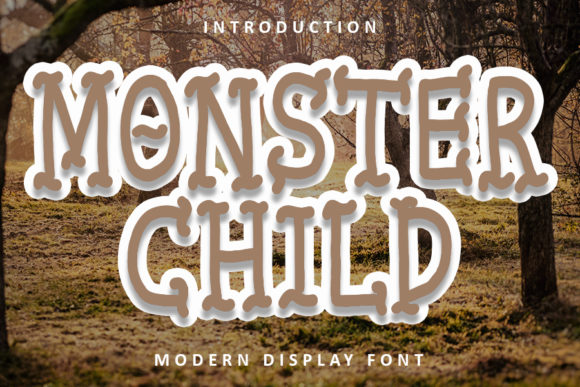
Monster Child Font
Monster Child is a natural and neat display font that brings a unique blend of trendiness and readability. Its design balances modern aesthetics with a clean, approachable look, making it versatile for various creative and professional applications. Whether you're designing digital content, crafting physical projects, or preparing visual presentations, Monster Child offers a fresh and eye-catching alternative to traditional fonts.
Why Monster Child Matters to Different Audiences
Monster Child appeals to a wide range of users, each with distinct needs and goals. For some, the font's visual appeal is the main draw, while others may prioritize its usability or adaptability. Understanding how different groups interact with the font helps clarify its value in various contexts.
Beginners and Hobbyists: A Creative Launchpad
For beginners and hobbyists, Monster Child serves as an excellent starting point for exploring typography. Its simplicity and charm make it accessible to those new to design. Whether you're creating greeting cards, social media graphics, or personal projects, Monster Child adds a touch of personality without overwhelming the user.
- Easy to use with minimal technical requirements
- Encourages experimentation and creativity
- Suitable for personal or small-scale projects
Professionals and Designers: A Versatile Tool
Design professionals often seek fonts that are both stylish and functional. Monster Child fits this bill by offering a balance between visual impact and readability. Its structured yet playful design makes it ideal for branding, marketing materials, and digital interfaces where aesthetics meet practicality.
- Adaptable for both print and digital formats
- Supports brand identity and visual storytelling
- Can be paired with other fonts for layered designs
Entrepreneurs and Small Business Owners: Branding Made Simple
For entrepreneurs and small business owners, first impressions matter. Monster Child can help create a memorable brand identity with its distinctive style. It’s particularly useful for logos, website headers, and promotional content where a unique visual voice is essential.
- Helps stand out in competitive markets
- Enhances brand recognition through consistent use
- Cost-effective for small businesses looking to elevate their visuals
Bloggers and Marketers: Engaging Content with Impact
Blogs and marketing campaigns thrive on visual engagement. Monster Child can elevate the tone of your content, making it more engaging and shareable. Its modern flair aligns well with current design trends, helping your message resonate with a broader audience.
- Boosts readability and visual appeal in online content
- Supports a variety of content types from articles to infographics
- Aligns with contemporary design preferences
Educators and Freelancers: Tools for Teaching and Earning
Educators and freelancers often need fonts that are easy to teach and apply across different projects. Monster Child’s clear structure and friendly appearance make it a great choice for teaching typography basics or using in client work. It supports both educational and commercial purposes without sacrificing quality.
- Teaches design principles through hands-on use
- Works well in both instructional and client-facing materials
- Offers flexibility for various project types
Choosing the Right Font for Your Needs
When selecting a font like Monster Child, consider your priorities. Are you looking for something that enhances creativity, improves readability, or supports a specific design style? Each group has its own set of criteria, which can influence whether Monster Child is the right fit.
Key Factors to Consider
- Ease of Use: How simple is it to implement and customize?
- Cost: Is the font free or requires a purchase?
- Quality: Does it maintain clarity at different sizes and resolutions?
- Flexibility: Can it be used across multiple platforms and formats?
- Presentation: Does it enhance the overall visual appeal of your work?
- Learning Value: Does it offer opportunities for growth or experimentation?
- Commercial Value: Is it suitable for business use or public projects?
- Long-Term Usefulness: Will it remain relevant as design trends evolve?
Real-World Applications
Monster Child isn’t just for designers—it’s a tool that can be applied in many ways. Here are a few examples of how different audiences might use it:
Greeting Card Makers
Creating personalized greeting cards becomes more engaging with Monster Child. The font’s friendly and modern feel makes it perfect for birthdays, weddings, or holiday messages.
Digital Presentations
Presenters can use Monster Child to add visual interest to slides. Its legibility ensures that even large text remains clear, making it ideal for keynote speeches or classroom demonstrations.
Marketing Materials
Brands can incorporate Monster Child into brochures, banners, or social media posts to create a cohesive and stylish visual identity. It adds a unique touch that sets them apart from competitors.
Online Courses and Tutorials
Teachers and content creators can use Monster Child to make learning materials more visually appealing. Its clean design supports both instructional content and interactive elements.
Is Monster Child Right for You?
If you’re looking for a font that combines style with functionality, Monster Child is worth considering. Whether you're a beginner exploring design, a professional seeking versatility, or a business owner aiming to enhance your brand, this font can meet your needs. Just ensure it aligns with your project goals and design preferences.